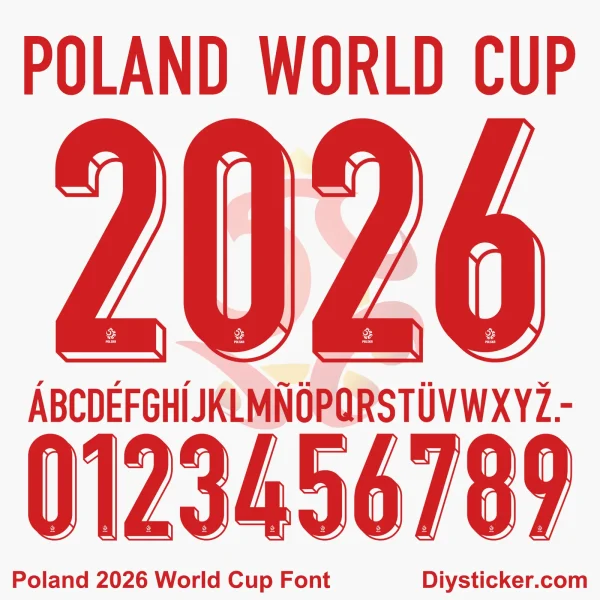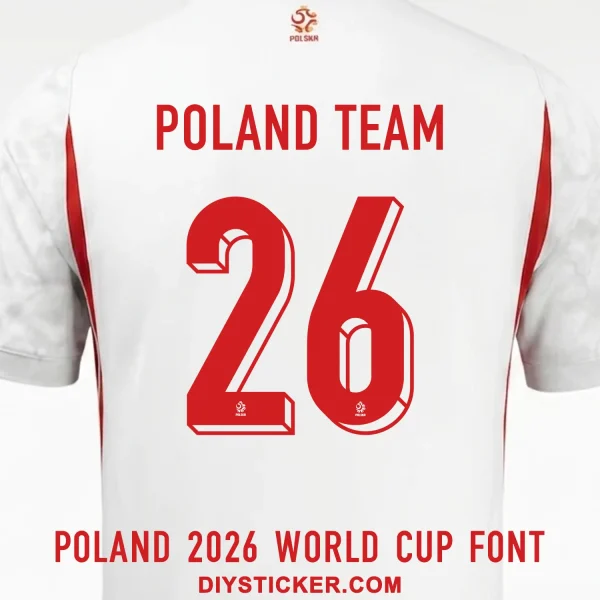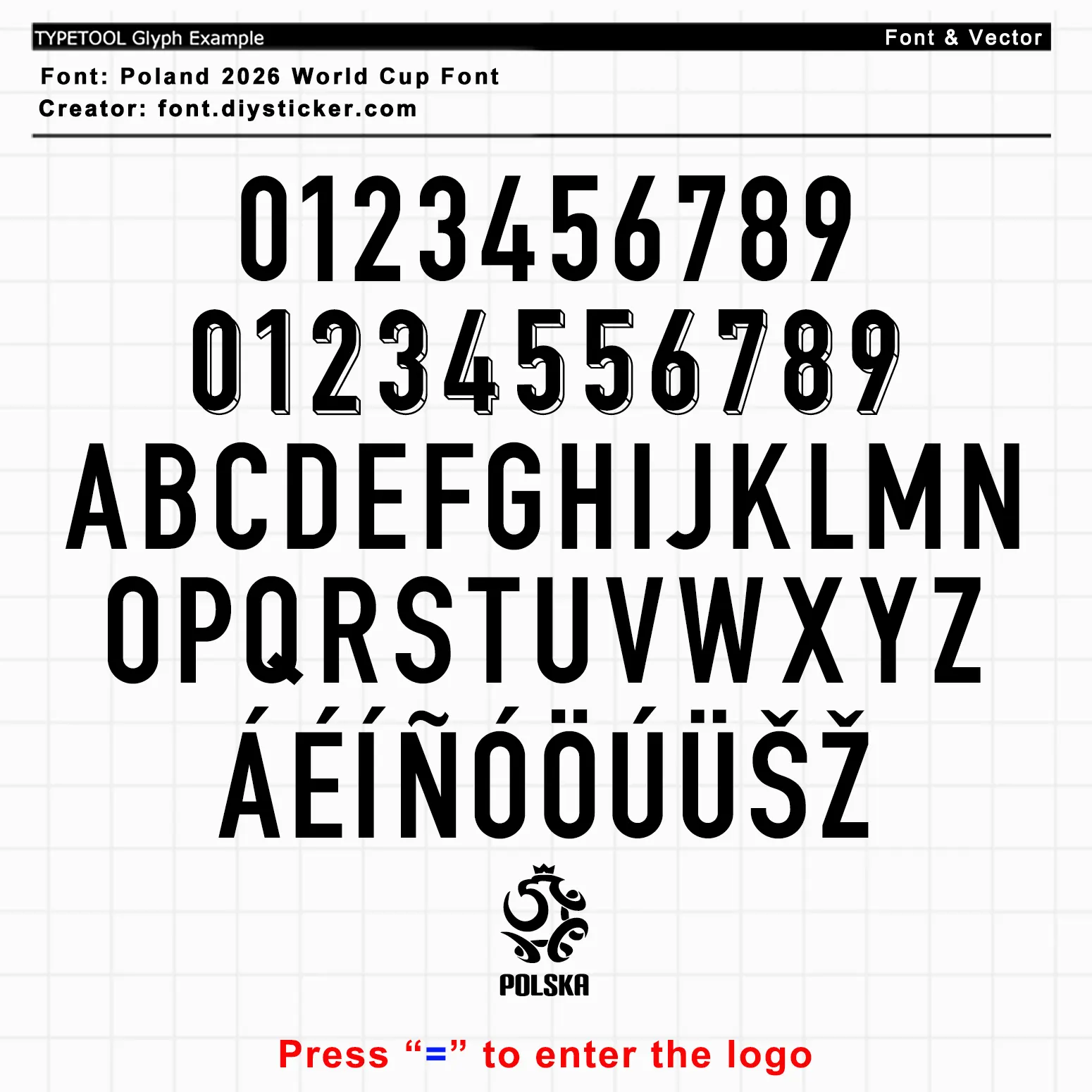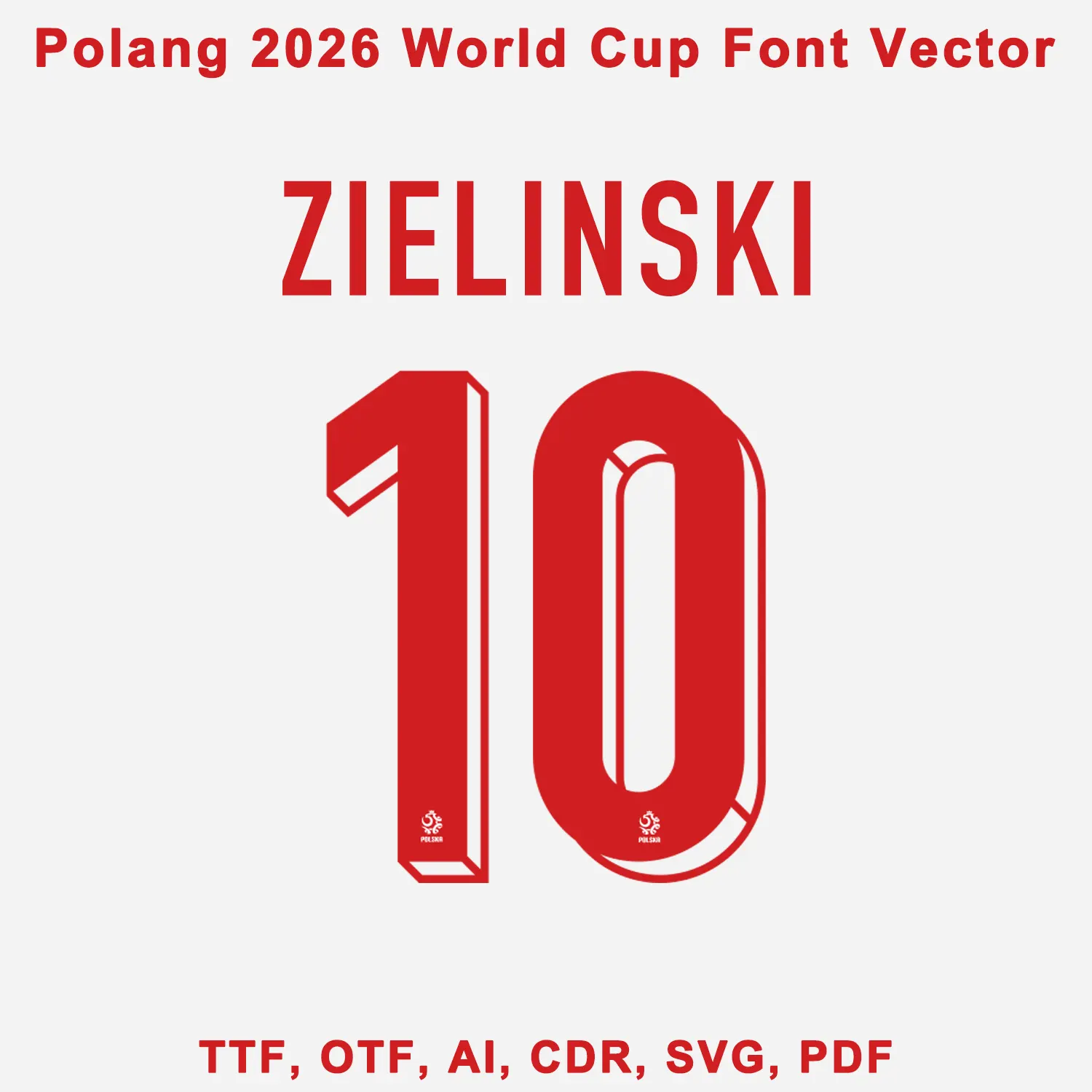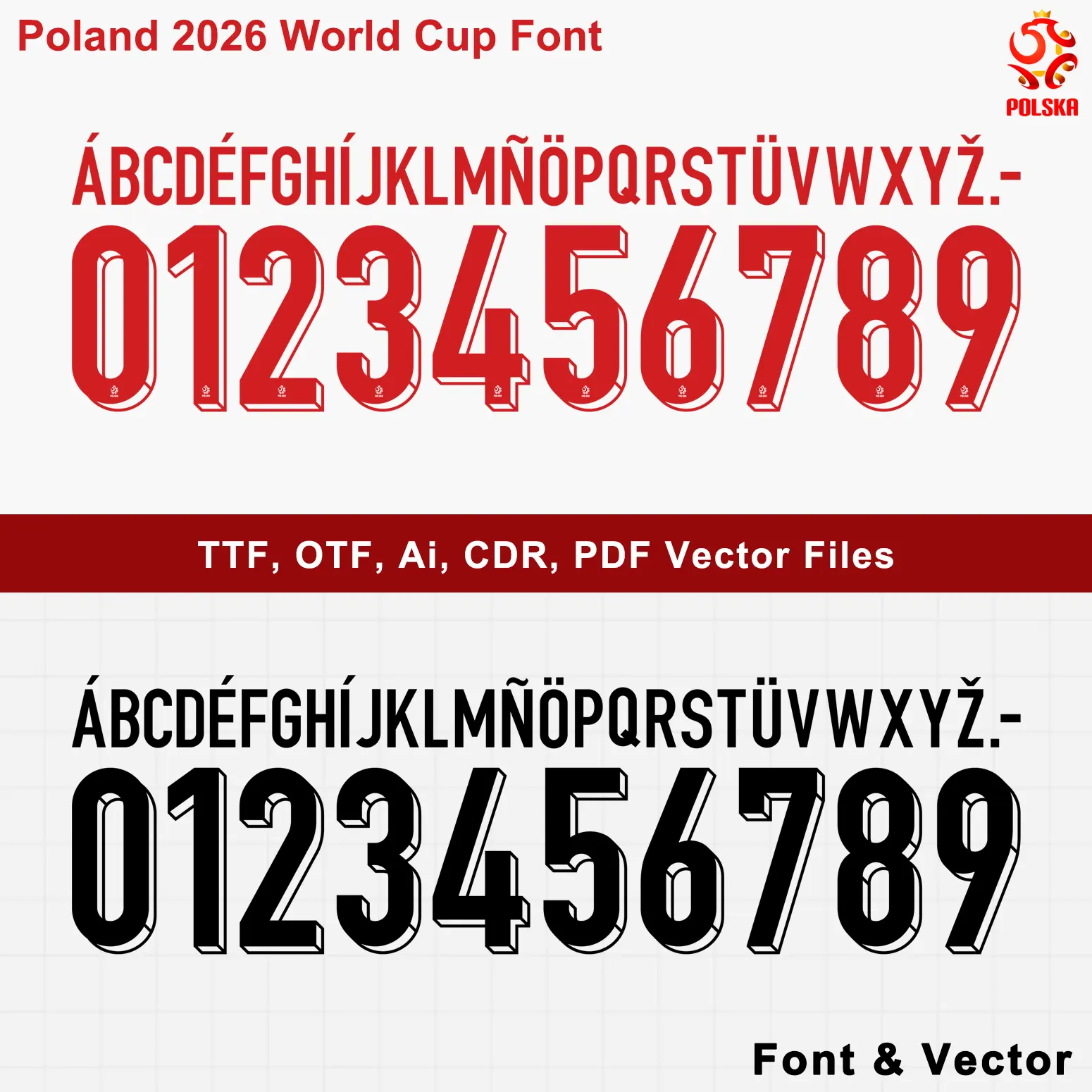
Poland 2026 World Cup Font & Numbers Vector Kit: Premium UEFA Tournament Customization
Upgrade your custom print production with the high-performance Poland 2026 World Cup font and complete numbers set. Designed to perfectly replicate the striking national team look worn during international qualifiers and world championship stages, this digital toolkit offers unrivaled geometric precision. Whether you are creating a custom name-set for a passionate fan or compiling massive promotional sports signage, our vector files ensure factory-fresh alignment. Discover more iconic international tournament designs by exploring our curated World Cup 2026 Fonts repository.
Aesthetic Design Breakdown & Typography Engineering
The Poland 2026 World Cup font features a tall, condensed athletic structure crafted to stand out with exceptional clarity on the pitch. Distinctive visual selling points include:
Bold 3D Block Shadow Geometry: The numbers incorporate an explicit white-lined dimensional drop-shadow offset to the lower right. This adds a clean, architectural layered depth that prevents the graphics from blending flatly into the fabric.
Integrated Miniature Association Branding: Nestled precisely near the bottom baseline of every single digit is a miniature, high-fidelity national team crest watermark, providing ultimate replica authenticity for high-end customization.
Classic White & Red High-Contrast Contrast: Engineered to pop with maximum visual impact when rendered in deep crimson red on white home jerseys, or inverted for striking away kits.